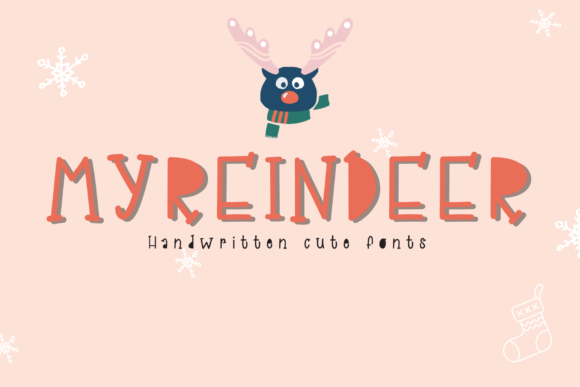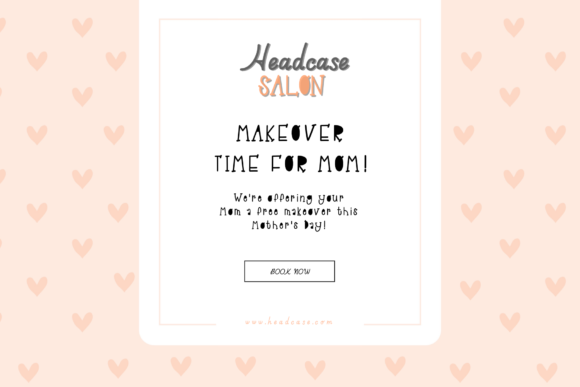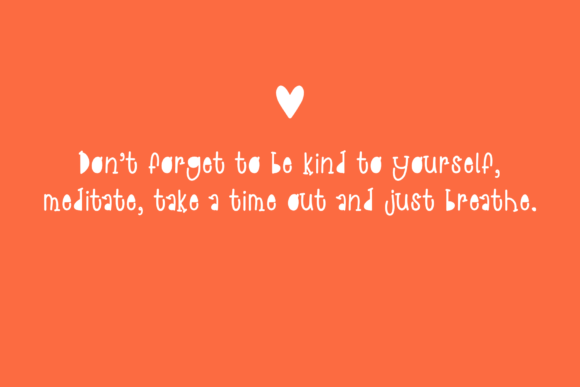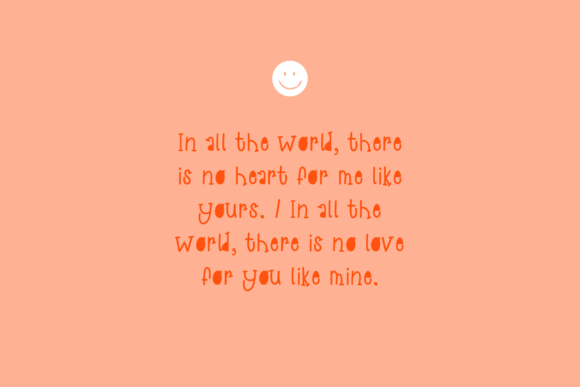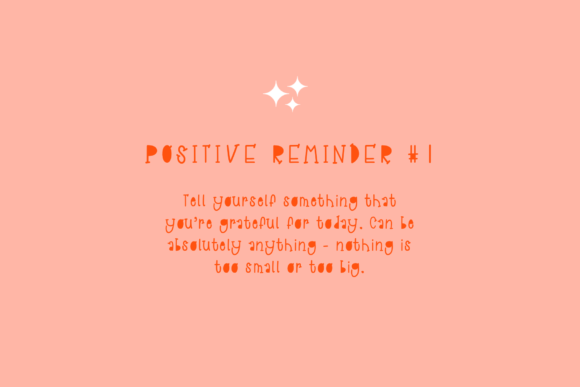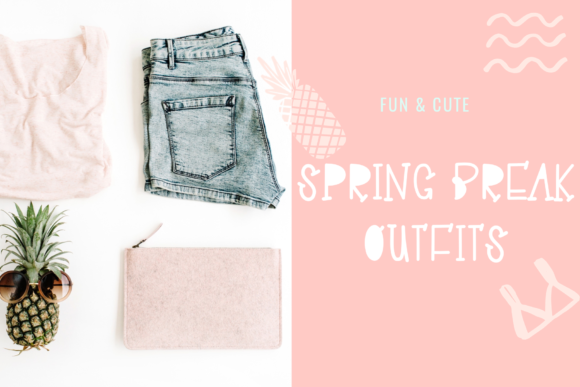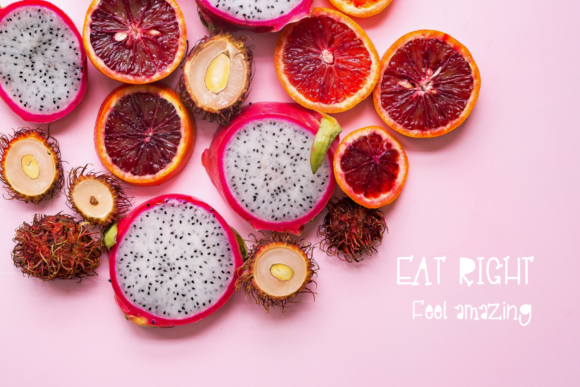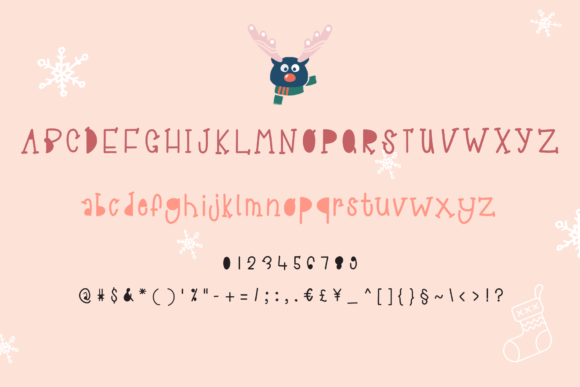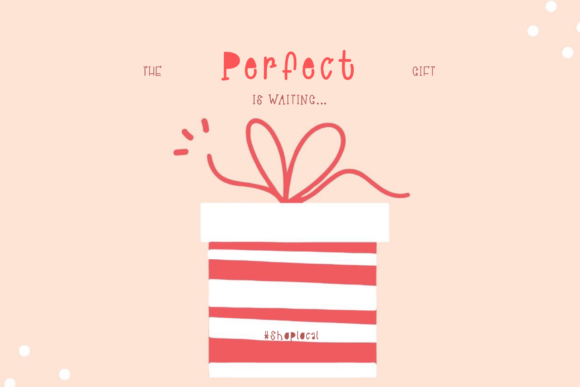
My Reindeer Font
My Reindeer is a cute handwritten font. Its casual charm makes it appear wonderfully down-to-earth, readable and, ultimately, incredibly versatile. My Reindeer will look outstanding in any context, whether it’s being used on busy backgrounds or as a standalone headline!